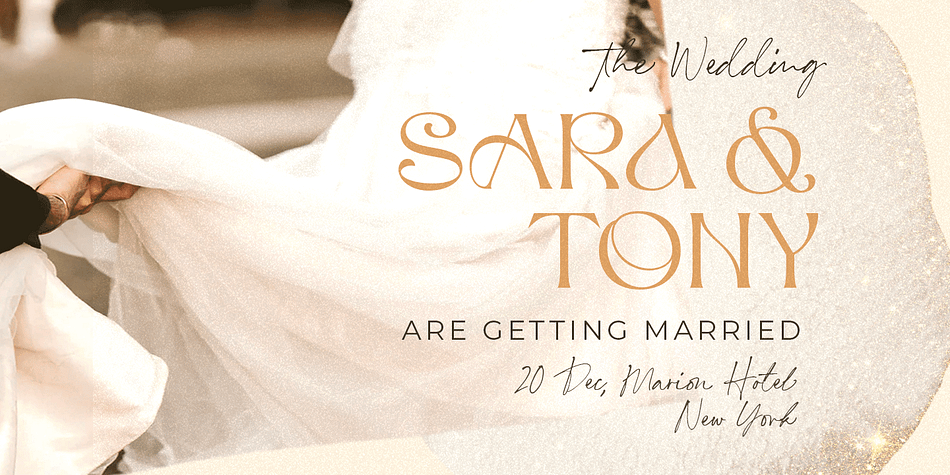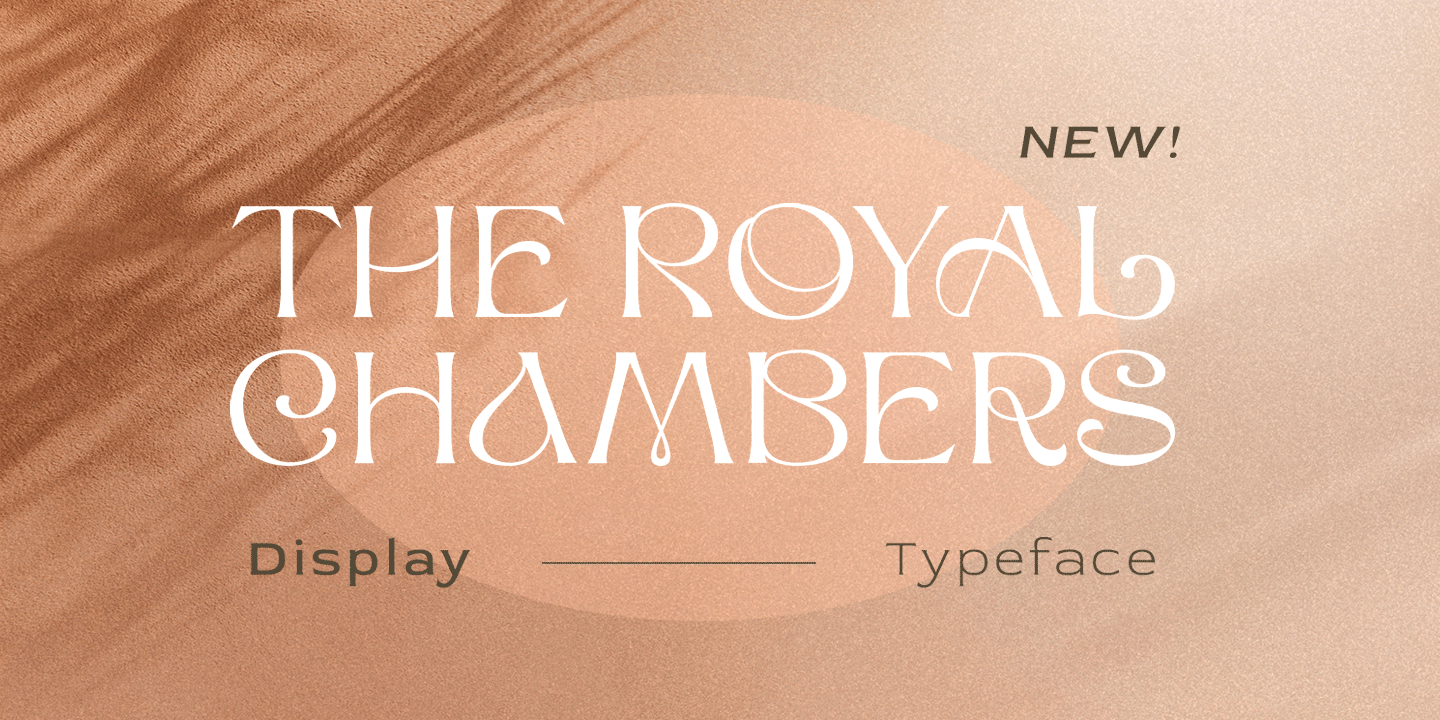
The Royal Chambers
Designed by Hendry Juanda, The Royal Chambers is a display and display serif font family published by Letterhend Studio.
The Royal Chambers is a sophisticated display serif typeface. This typeface has been made carefully to make sure its premium quality and luxury feel. The unique letterforms makes this typeface unique and stands out rather than the regular serif font. Very suitable for logo, headline, tittle, and the other various formal forms such as invitations, labels, logos, magazines, books, greeting / wedding cards, packaging, fashion, make up, stationery, novels, labels or any type of advertising purpose.
numbers and punctuation
multilingual
ligatures
alternates